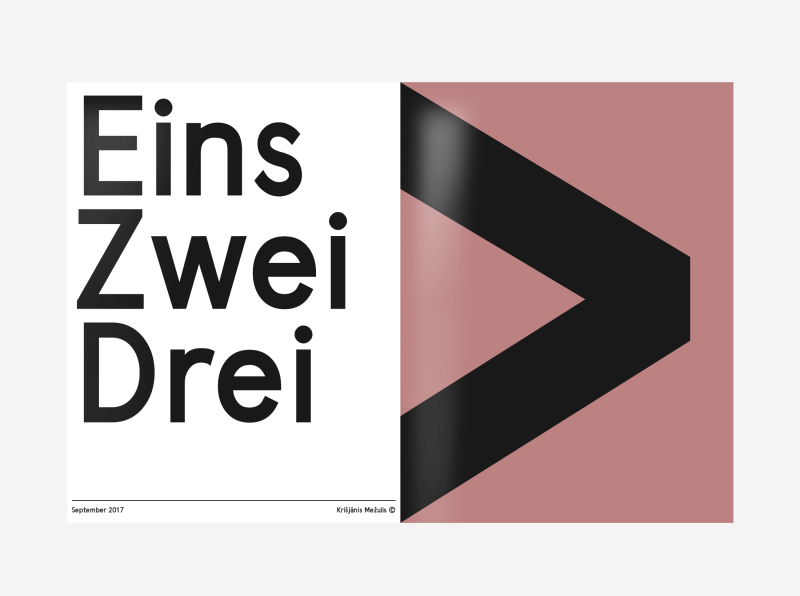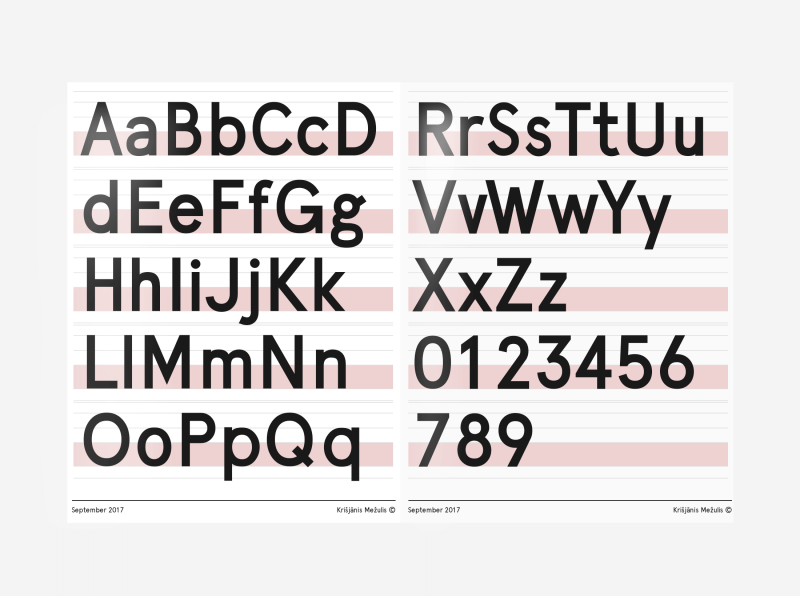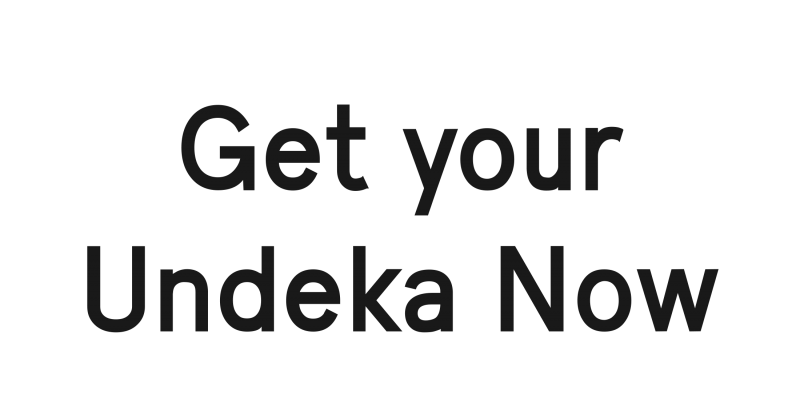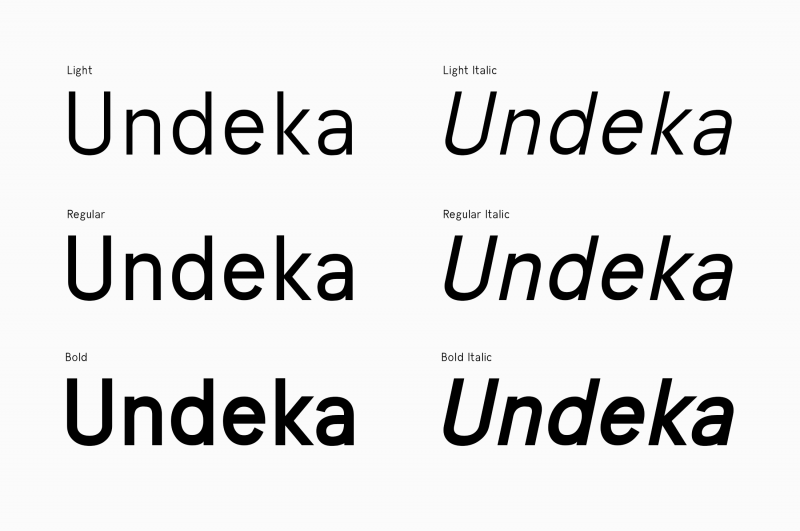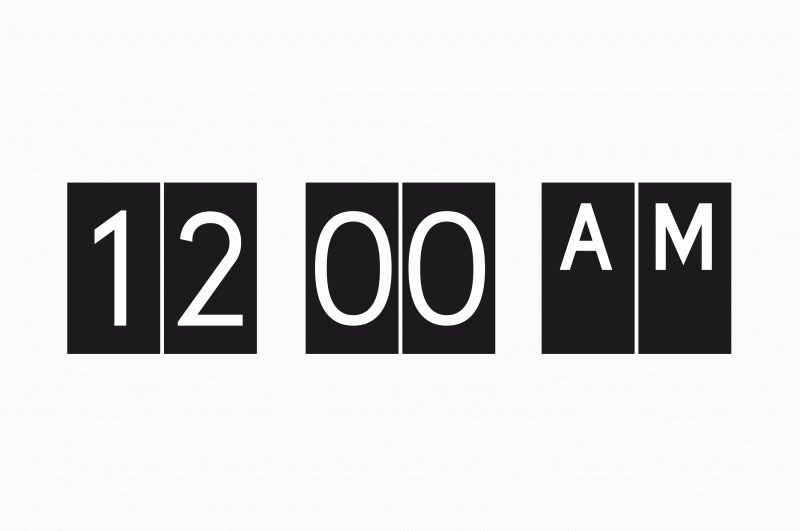
Undeka Typeface, a new contemporary font
It was a cold winter day and I was enjoying a cup of warm coco strapped in a fuzzy blanket, with my mac in my lap. Looking for fonts that like and would use in my next projects. After browsing for quite a long time I got a hunch that I could not find anything that I like and would use. Yes, you could say, what the hell is he on about, there are millions of fonts out there and so many great ones. Yes, I agree, completely, but there are always some details that bother me. Some are to wide, some are to fat, some are to stylish and some do not have a personality. So I thought that it would be awesome if it would be possible for me to create a font which would make me happy and outline the fundamentals i was looking for.
It’s not like it’s the first time for me to get myself involved in type design. Me and my friend Gatis had started our own type foundry — Wildtype a year before and had huge success with the first fonts we had made. One of them was Besom (made by me) the other Sunn by Gatis.
Why would you create a new font? There are millions of fonts out there and so many great ones. Yes, I agree, completely, but there are always some details about them that bother me.
Both were downloaded more than 20 00 times in the first months. So we knew we were on to something, and that we could not stop there. We worked on many fonts, but none that would be as solid, classical and clean cut as the one I had in my mind. Most of them were hand brushed. Knowing that the style worked, people liked them we continued to create many more.
Getting started got me thinking how i shall approach this, because a sans serif font has many ground rules that need to be considered in the development process. As anybody would do, I researched what the dictionary says about sans / sans serif. Wiki says “a sans-serif, sans serif, gothic, or simply sansletterform is one that does not have extending features called “serifs” at the end of strokes.” Quite precise, but this definition takes in action only the comparison to the Serif fonts. I gathered more examples of fonts and detail I like, one of them was Franklin Gothic and the News Gothic. The style of certain letters was very interesting.
Than I started to sketch ideas and capture detail that was interesting to me. letter endings, shapes, forms, styles, to get a vision of the feel and a personality I want to create with the Font. Later on the first stage was done and I new what the Type had to feel and stand for. It had to be simple, it had to be readable (well thats a must 🙂 and it had to have a personality to stand out from the massive crowd.
When I started to form the letter shapes I focused on getting them to feel as a singular family. As simple as possible, the simpler the better, the lighter. The width of the typeface was very important.
Undeka — Means eleven, for me that was the time in months needed to create the Typeface
My subjective view led me to think that most fonts are just to wide, the letters flow together smoothly but they don’t feel as beautiful as I want them to be, so I tried to create the letters a bit narrower, and making the gap between them slightly bigger, allowing the eye to flow naturally.
Since the font had to have a personality some letters got a personal touch. As for example the letter K and small cap k. They both form a unique pattern of structure, and overall height. The same goes for the g and G, both share unique details. The small g flows through the top o smoothly. And the big G points with the > to the next letter to ease the readability, they both lead the eye to the next letter.
After about a year of development I was pleased with the result. My efforts had led me to a Typeface that i could call a solid contemporary sans serif. The form of the type had changed of the the process and it now merged together into a singular unity. By the standards of typography books you could fault it every day. But that is missing the whole point. I did not set out to create another helvetica, the goal was to make something new, something that stands out and at the same time not. A typeface that has a personality and a view of the future. A personal vision of a modern and perspective typographical piece.